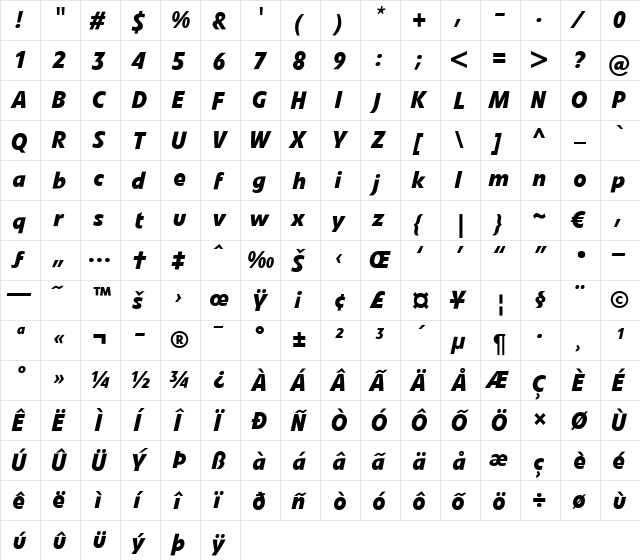
LTVeto Regular Bold Italic
| Designer | Marco Ganz |
Design Context for LTVeto Regular Typeface
LTVeto Regular takes a measured approach to typography — its balanced proportions and neutral character make it a reliable workhorse for both digital and print work. The slanted form adds forward momentum and visual energy. Its bold stroke weight gives it real presence on the page.